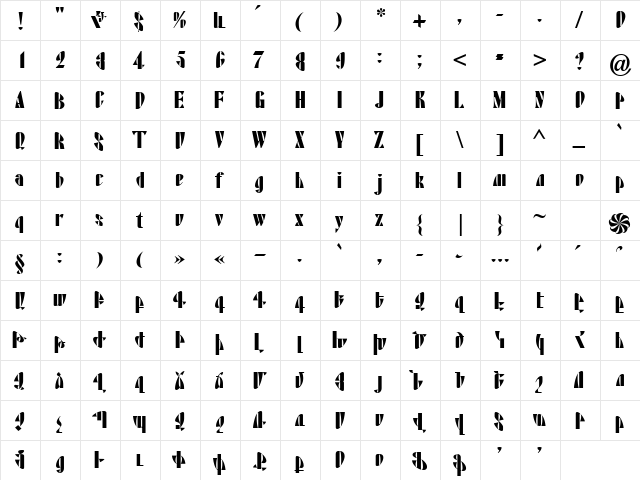
ArTarumianAfrickian Regular
Design Context for ArTarumianAfrickian Typeface
ArTarumianAfrickian is a composed and adaptable typeface that performs quietly and consistently across a wide range of design contexts.